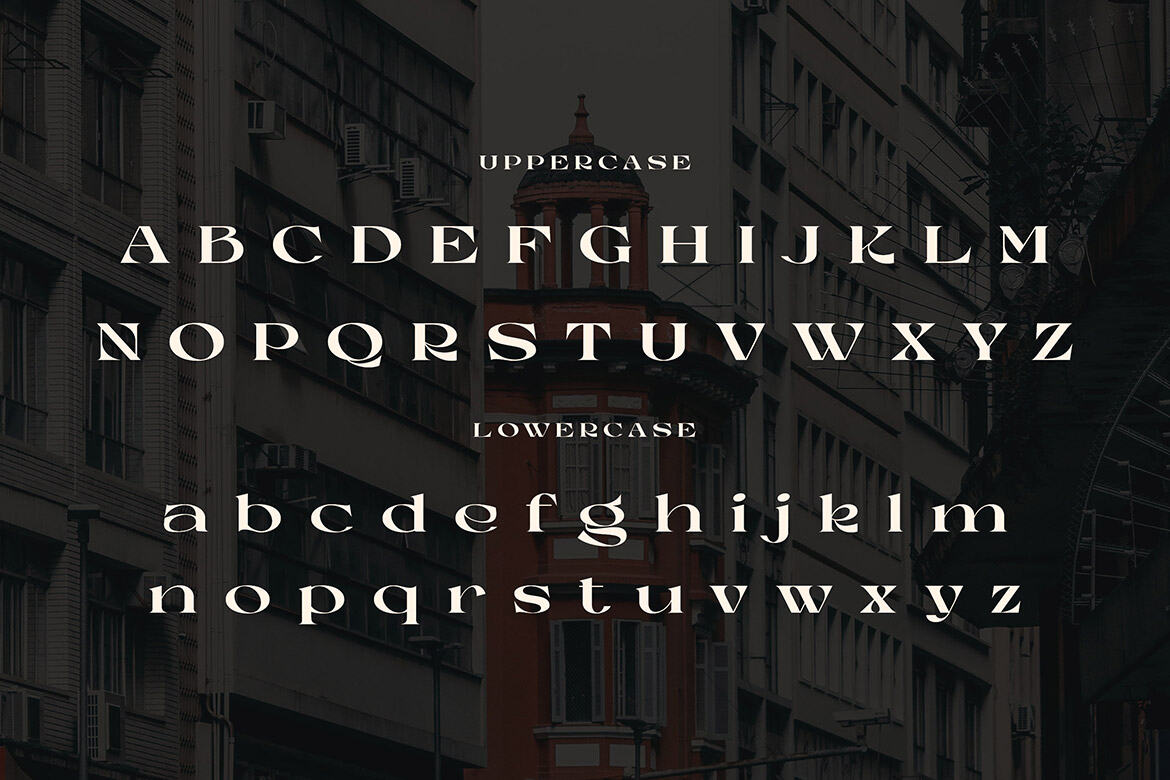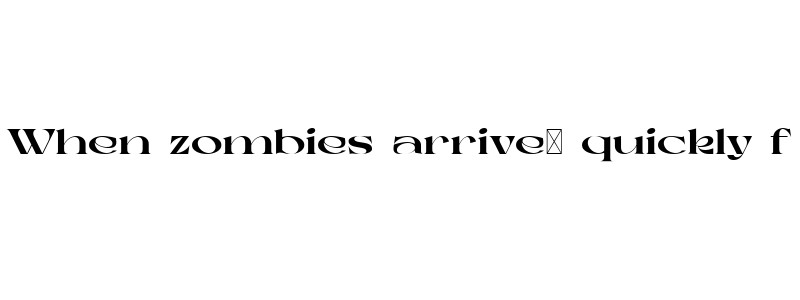
Korsson - Free Font
Trendy, classy, bold & modern style serif font for your fancy projects. Elegant, fashion and classic style on Korsson font will be great for any branding project. Enjoy this FREE version and maybe check also premium full version :)